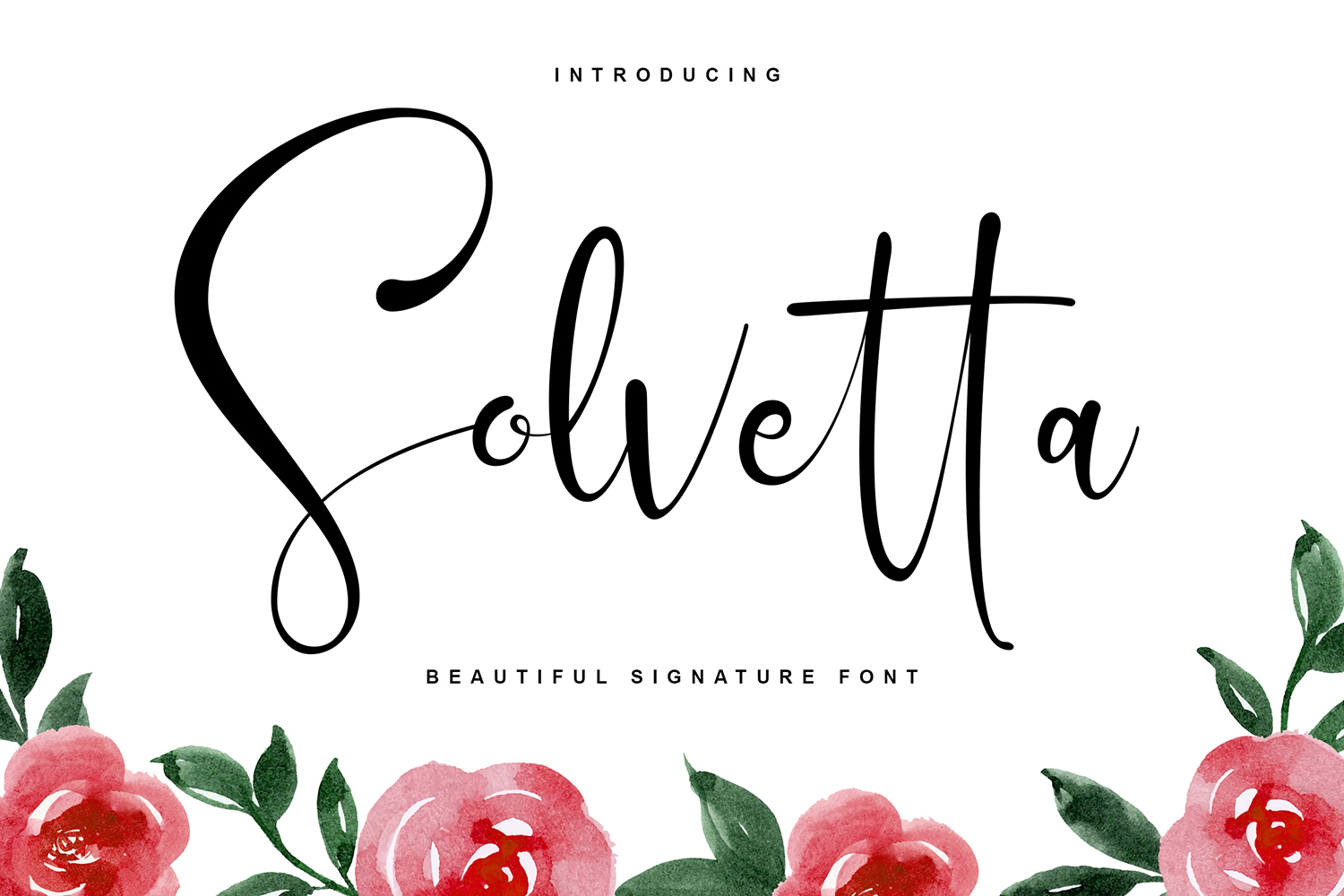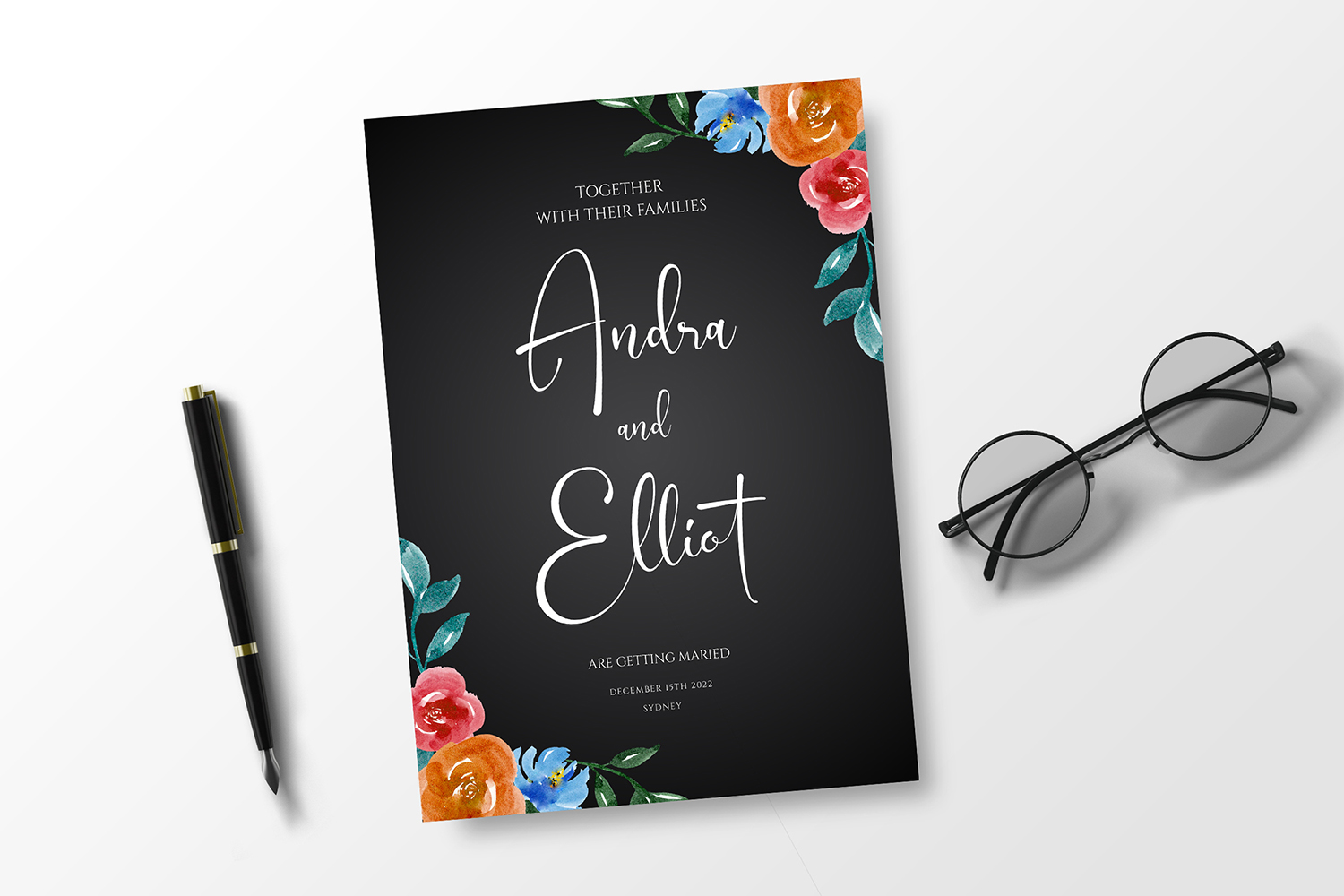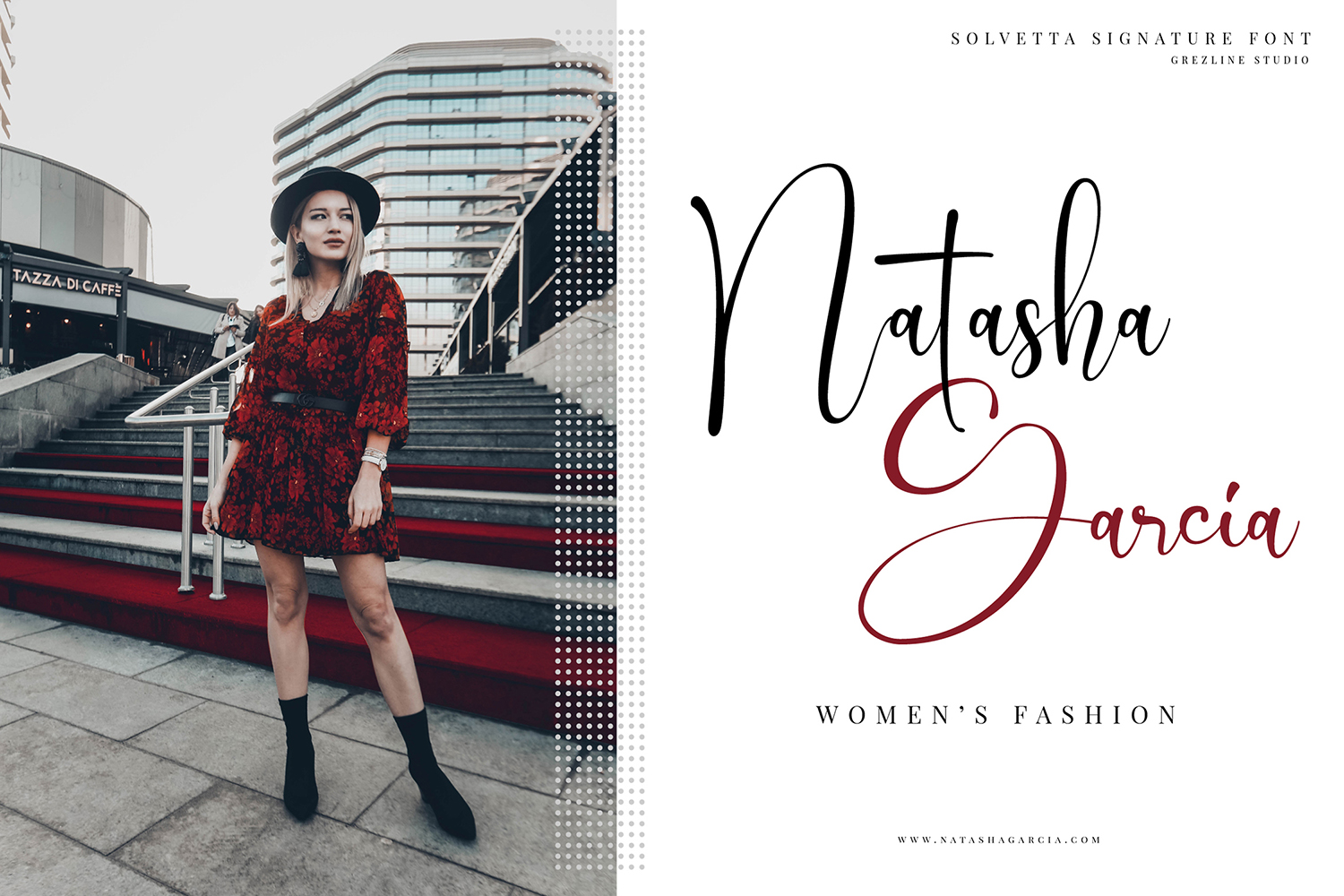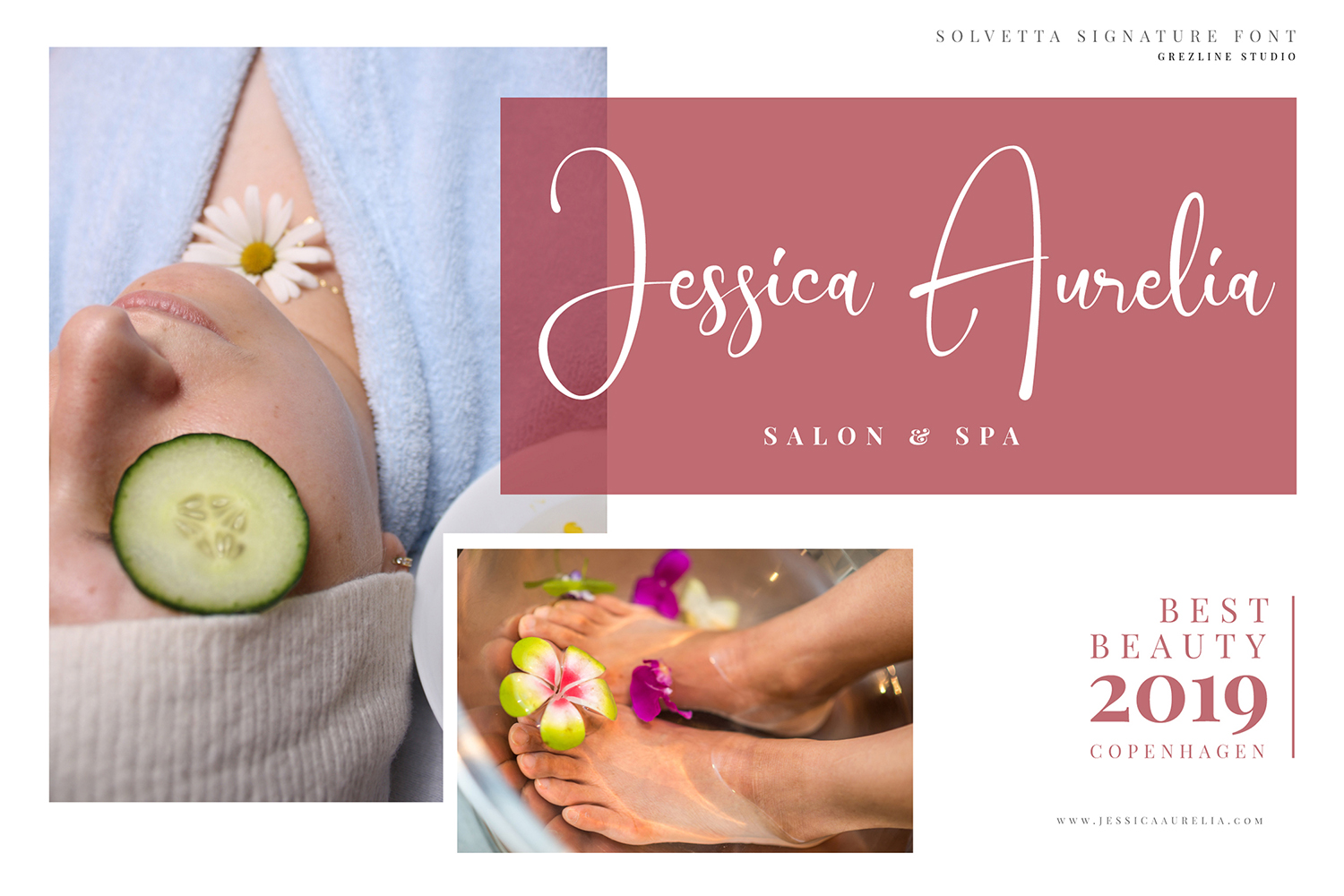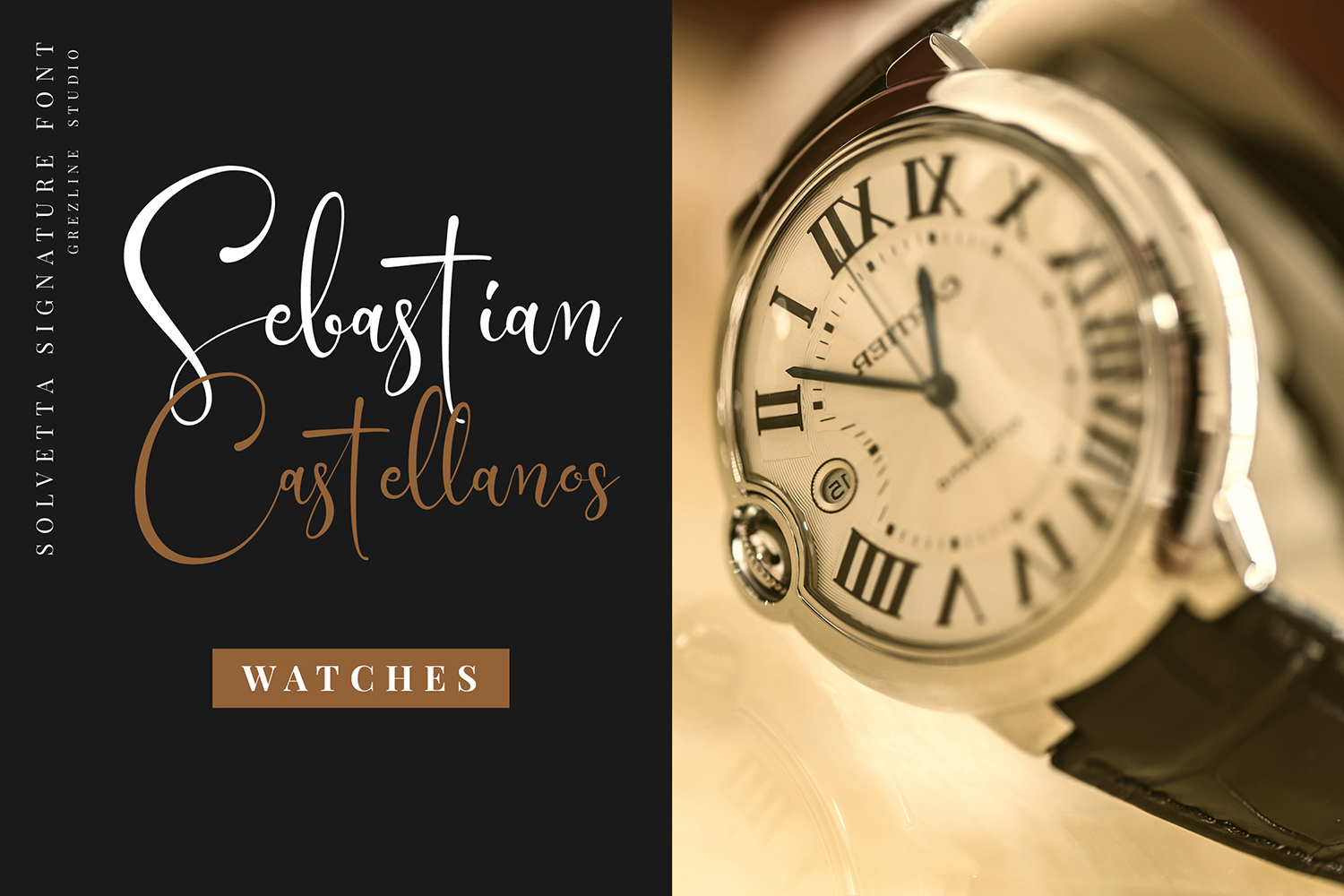
Solvetta Free Font
Solvetta Free Font is a light and charming handwritten font with a unique feel. It will add a bold feel to any design project. This free typeface was designed by a talented Akhmad Reza Fauzi. If you like it don’t forget to check out the full version.